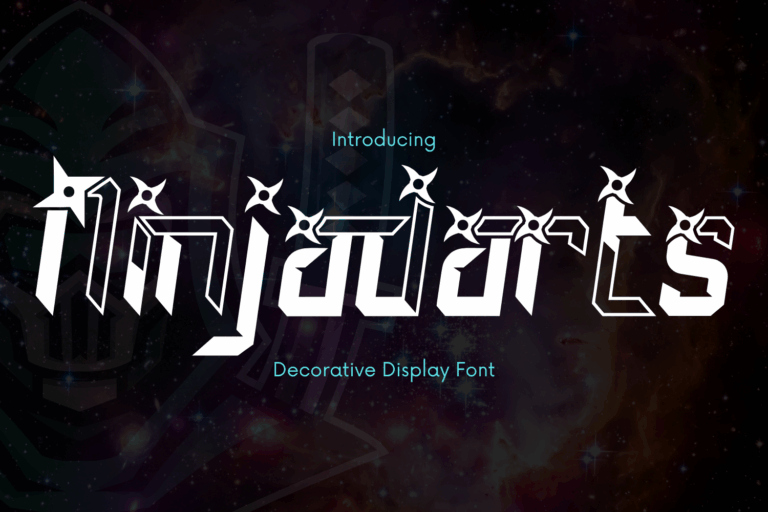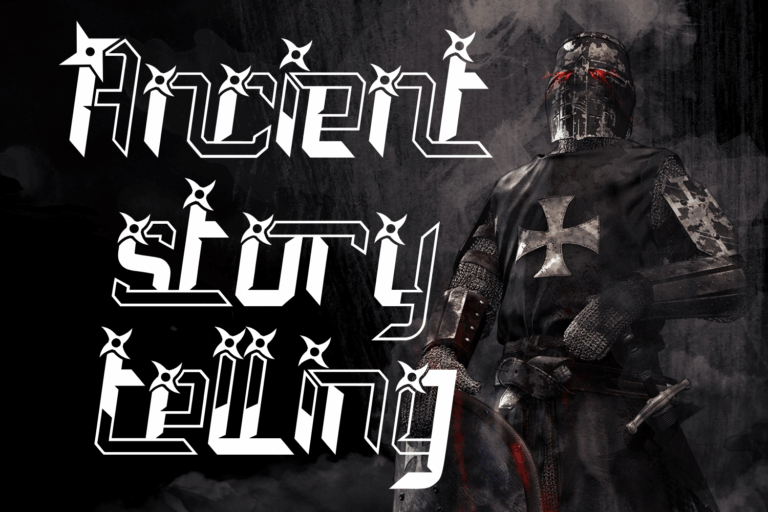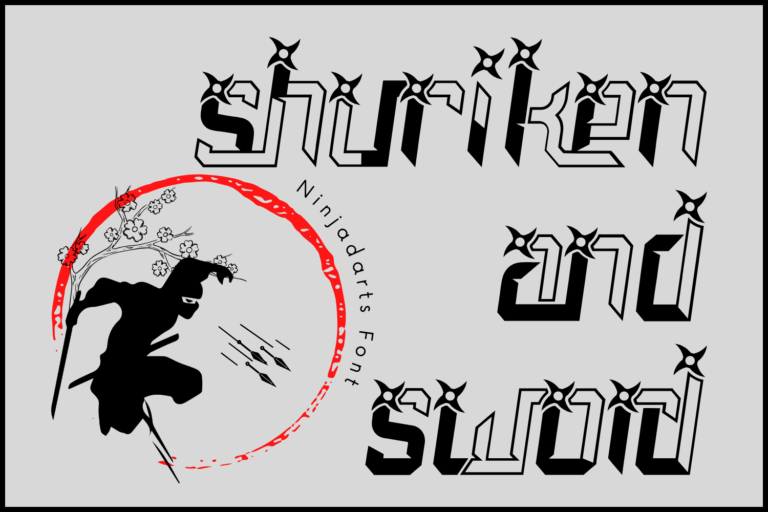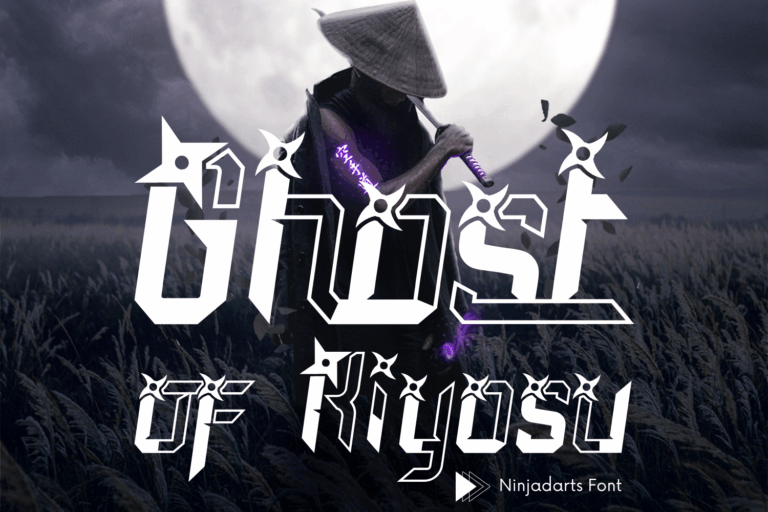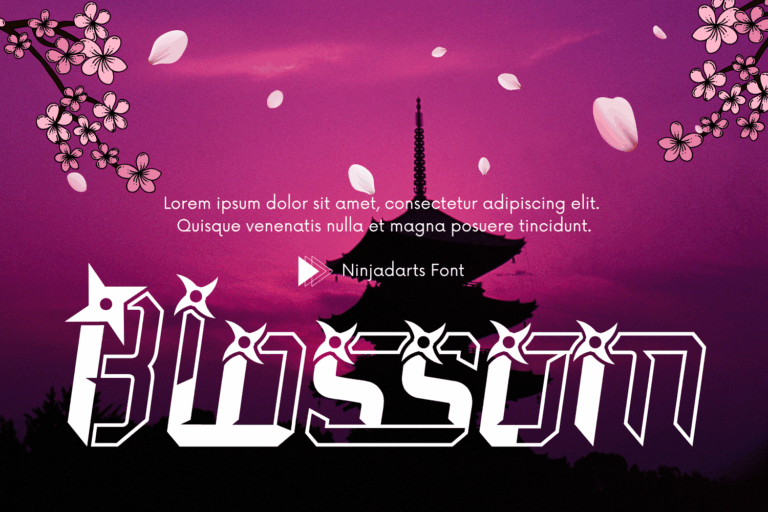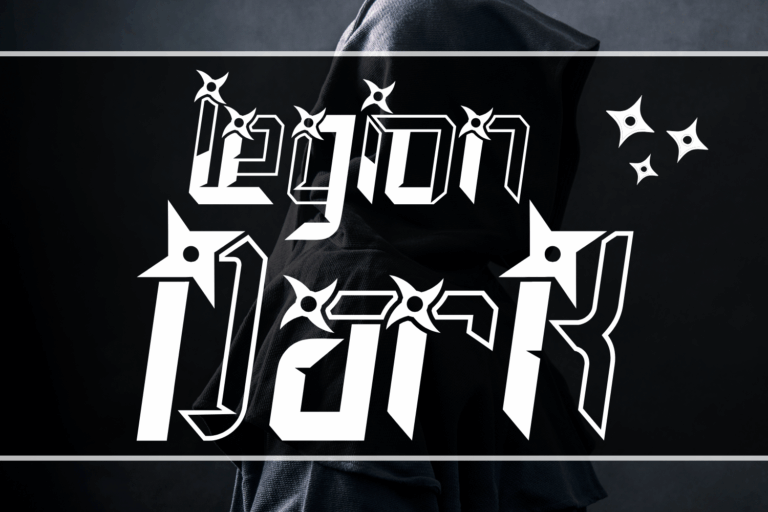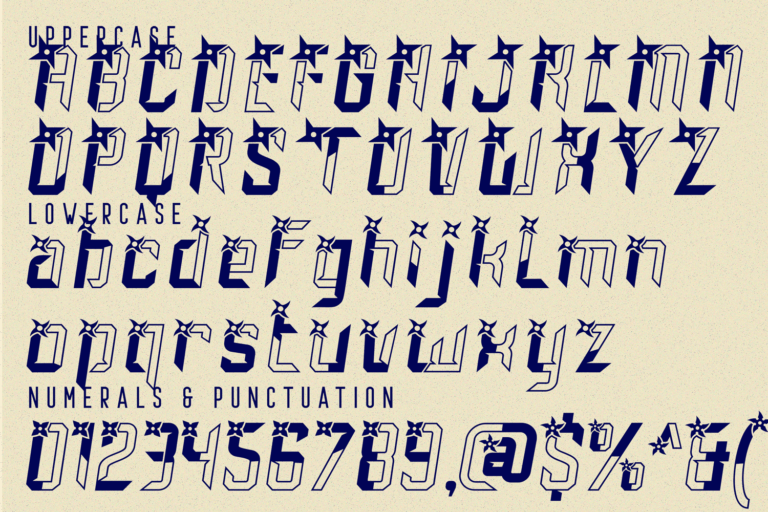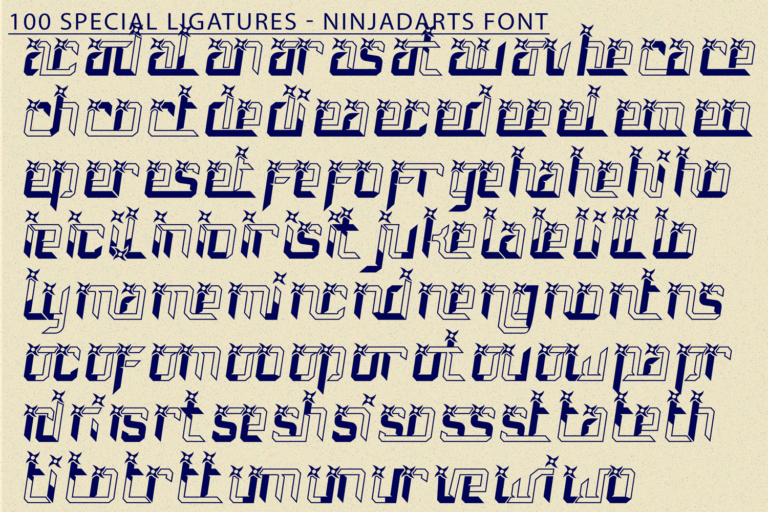
Ninjadarts – Shuriken Font is a cutting-edge display typeface inspired by ninja aesthetics and shuriken weaponry. Designed with sharp angles, geometric cuts, and dynamic energy, this font brings a sense of stealth, action, and futuristic attitude to your typography. Every character is infused with ninja flair, featuring blade-like edges and shuriken elements that pierce through the forms—perfect for projects that demand bold impact, such as game titles, tech branding, martial arts posters, or cyberpunk visuals.
Font Features:
• Uppercase & Lowercase Letters
• ~100 Special Ligatures & Alternates
• Accented Characters for multilingual support
ac ad al an ar as at au av be ca ce ch co ct de di ea ec ed ee el em en ep er es et fe fo fr ge ha he hi ho ie ic il in io ir is it ju ke la le li ll lo ly ma me mi nc nd ne ng no nt ns oc of om on oo op or ot ou ow pa pr ra rd re ri ro rs rt se sh si so ss st ta te th ti to tr tt um un ur ve wi wo
Ninjadarts – Shuriken Font